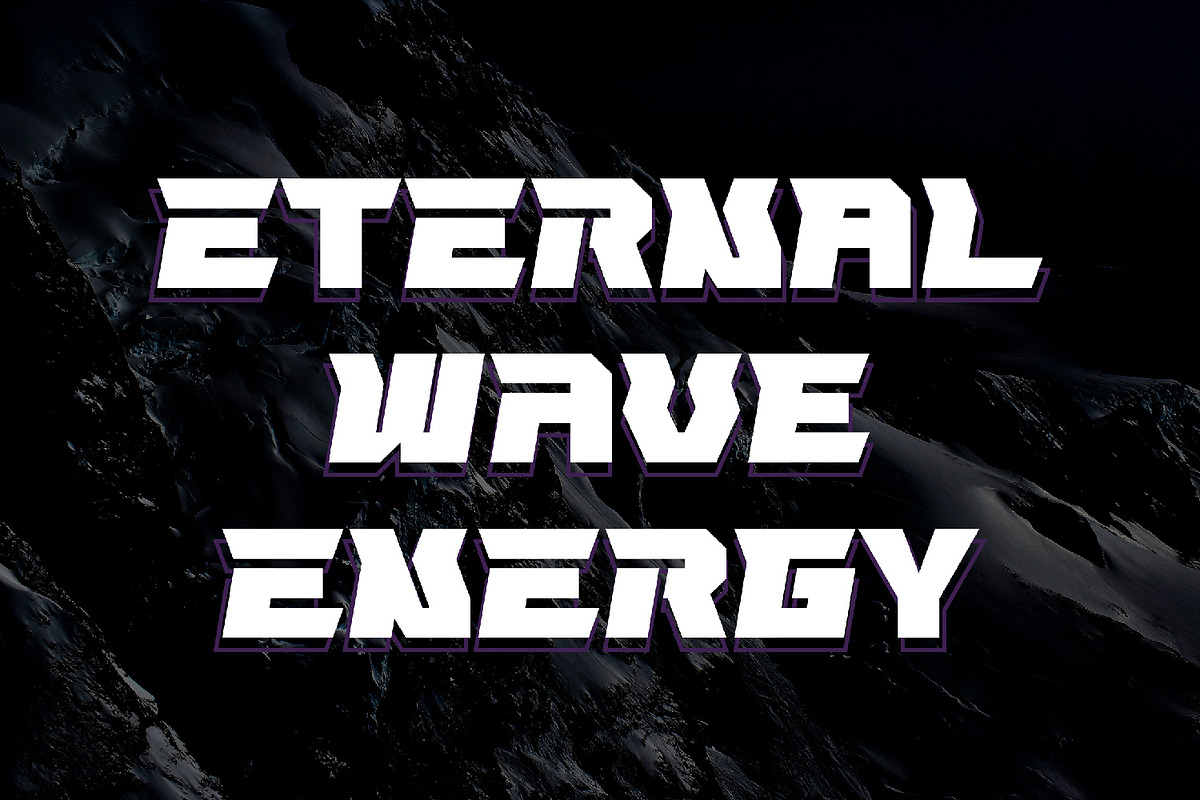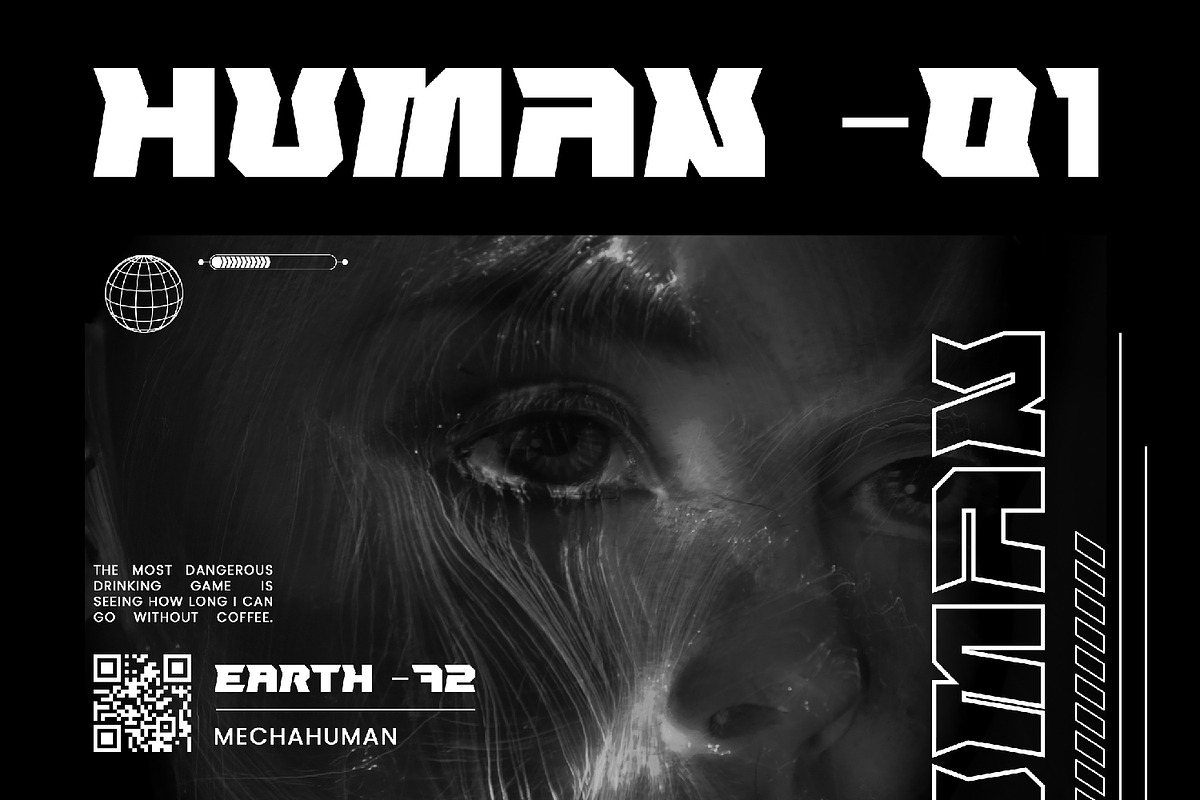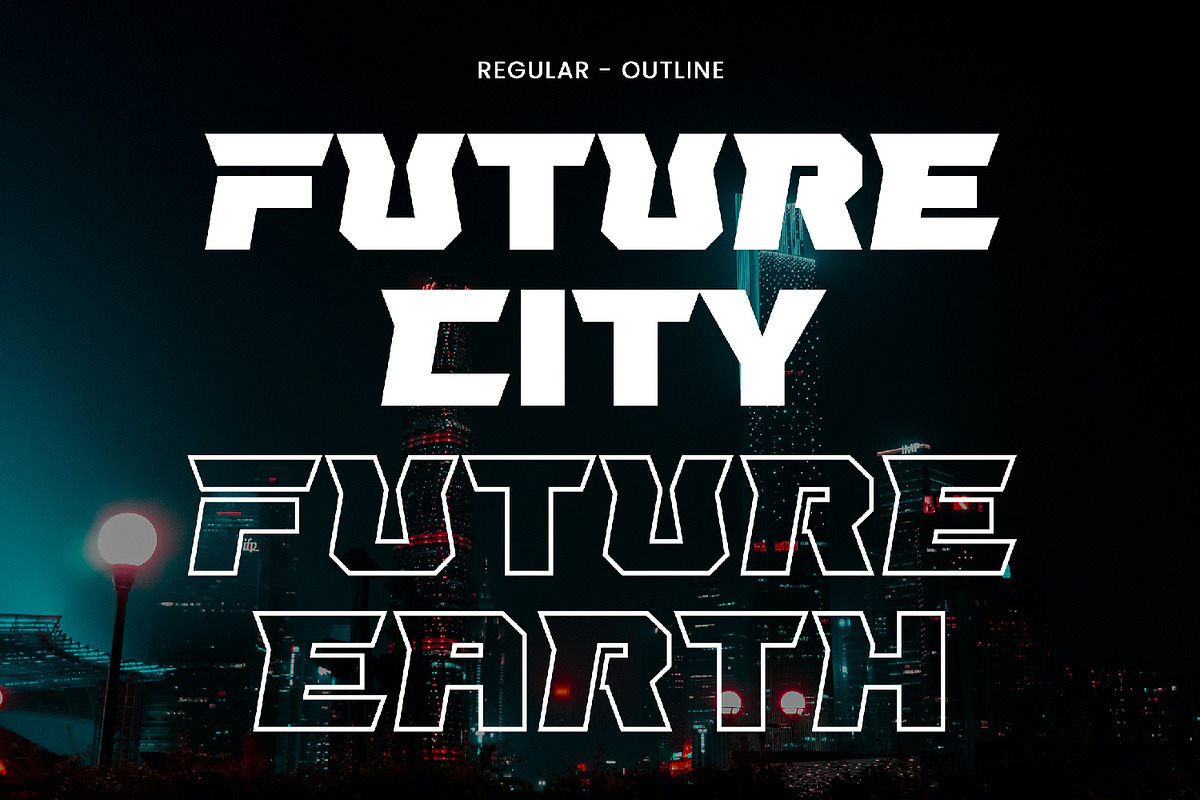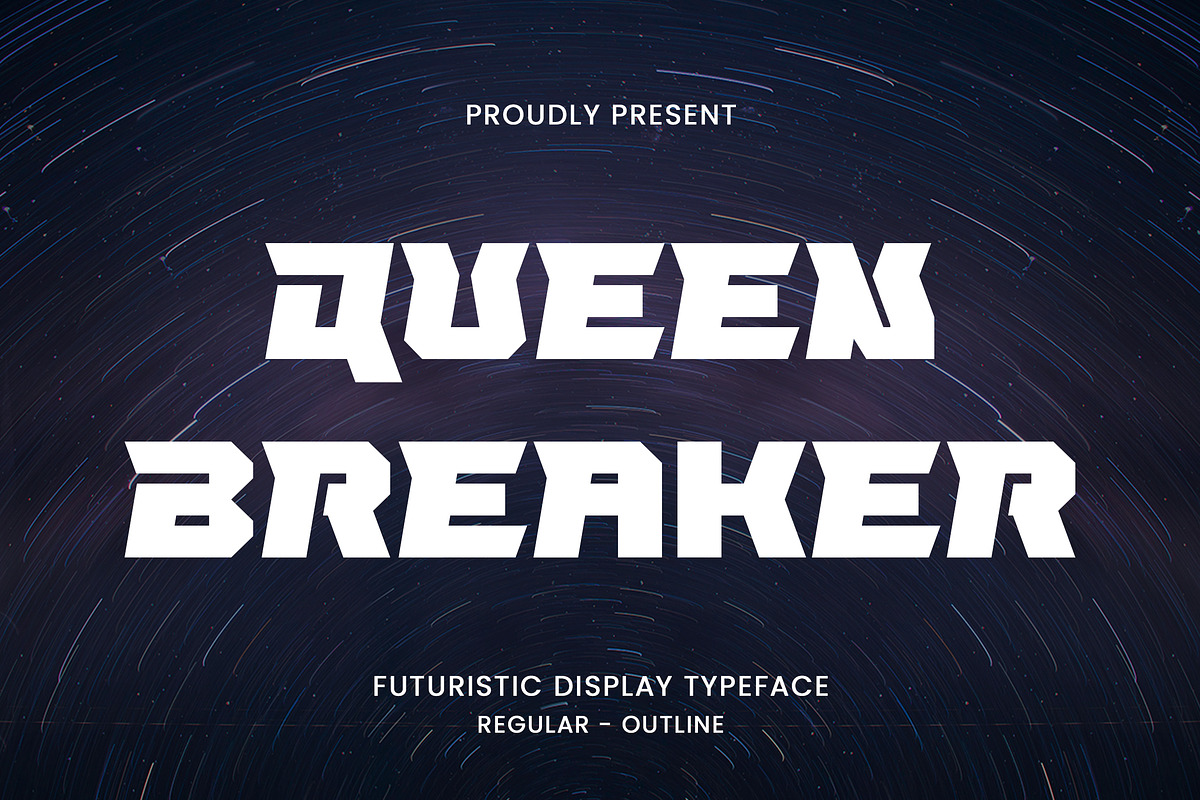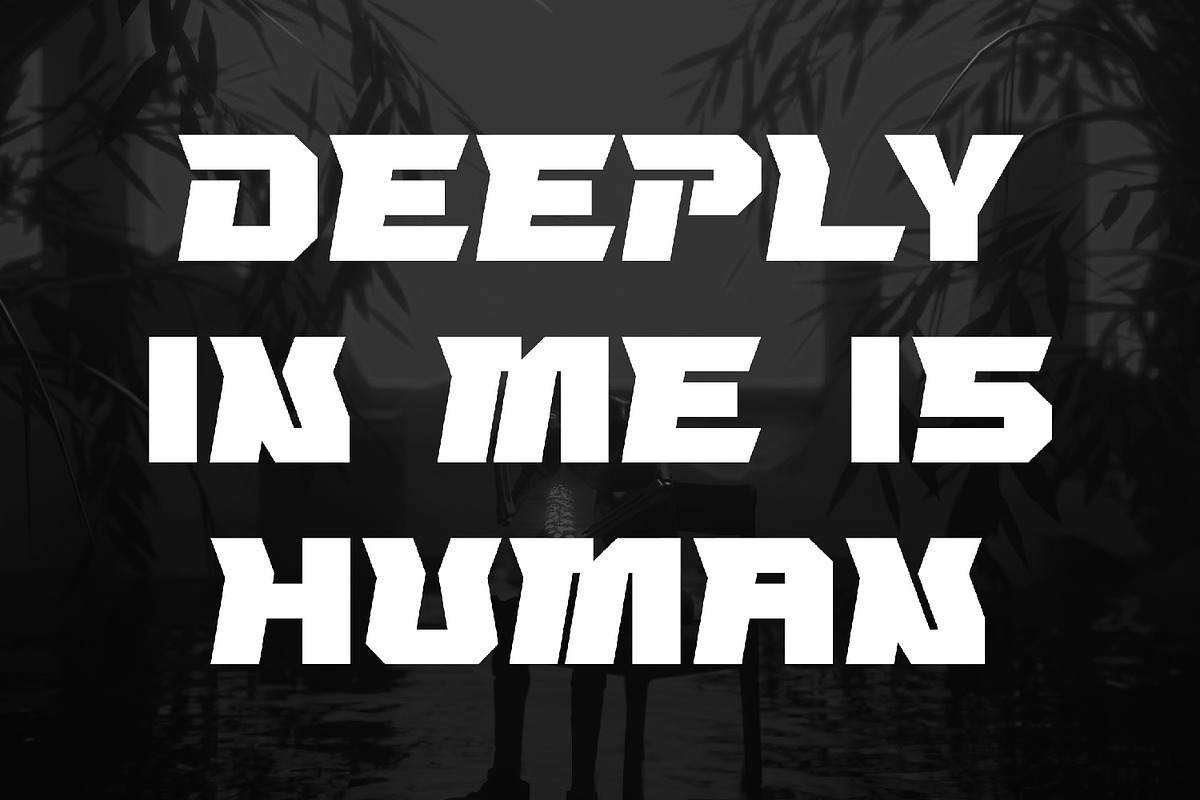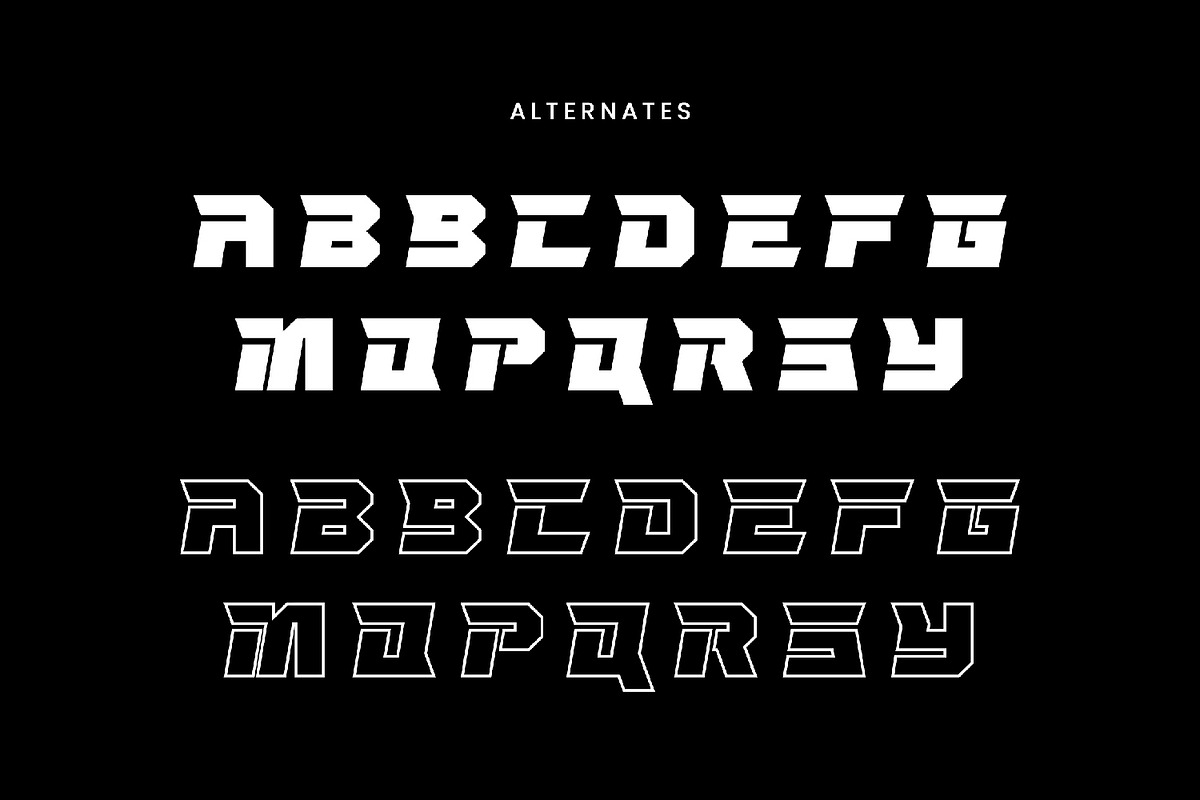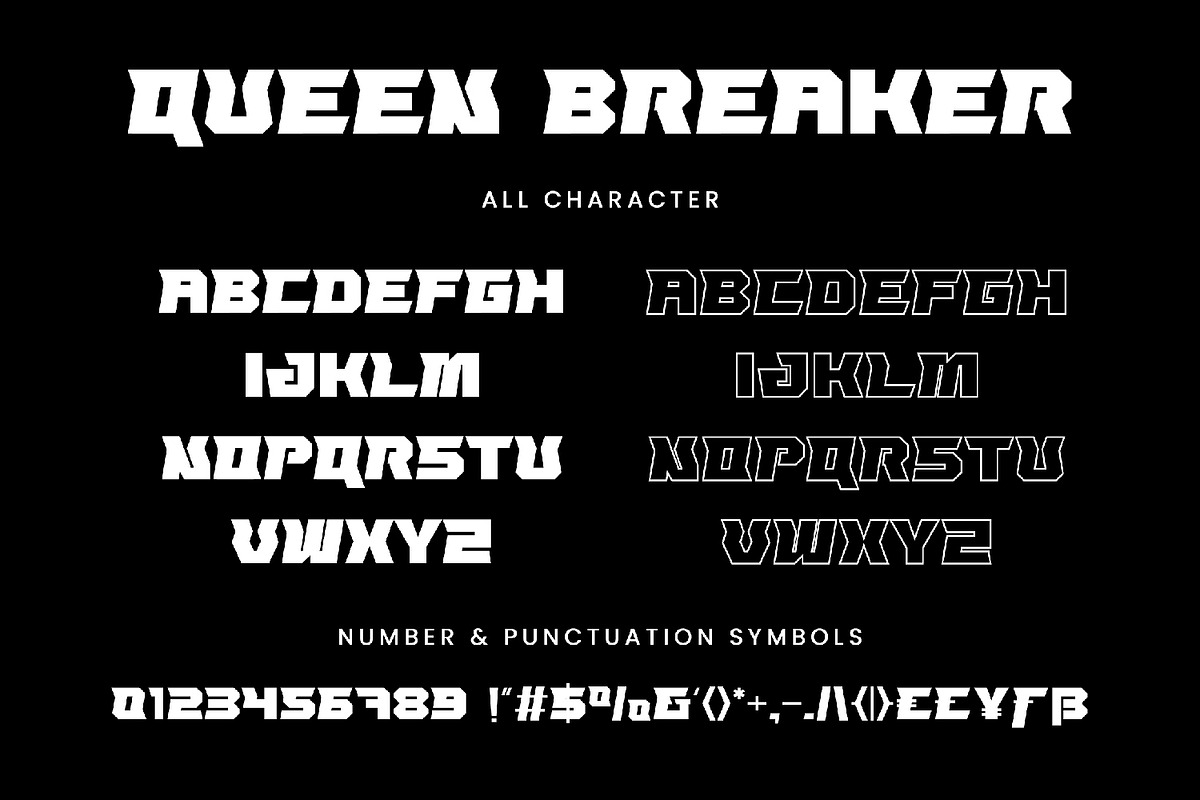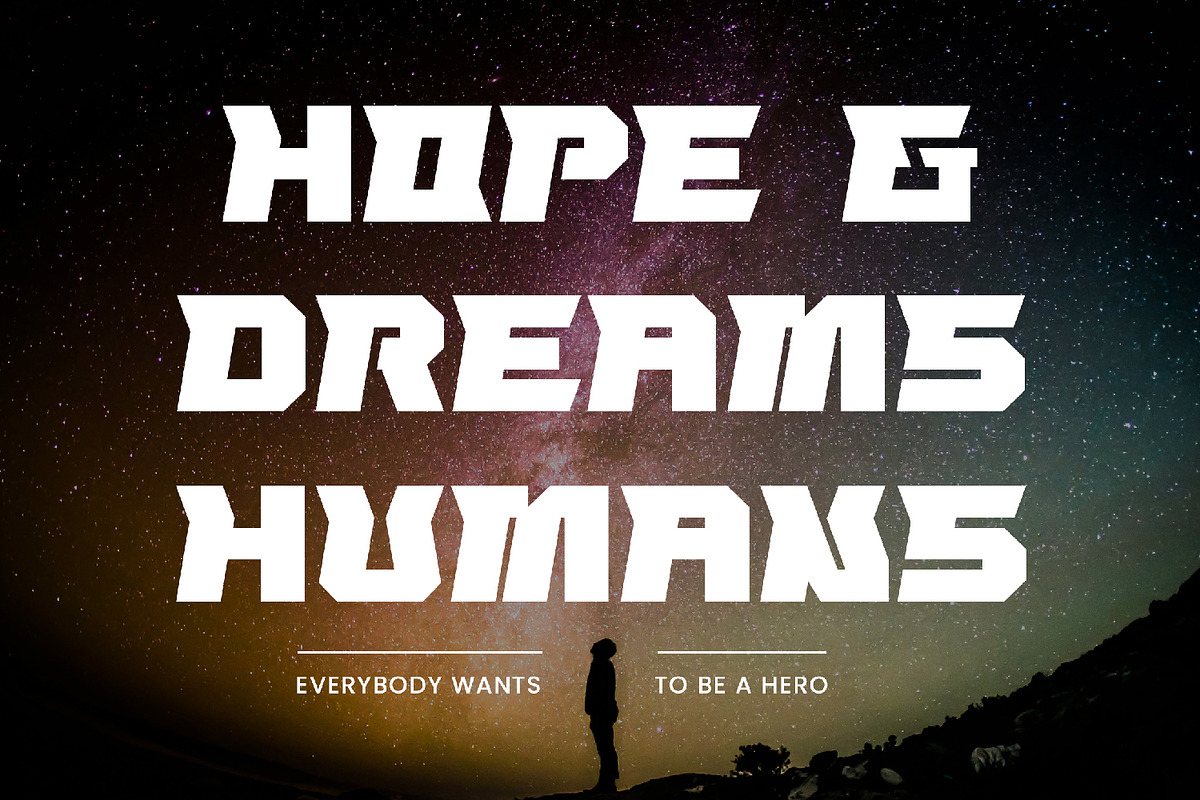
Queen Breaker - Futuristic Font
Queen Breaker - Futuristic Font contains a lowercase, uppercase, symbol, and also supports multi-language. There’s a lot of ligature in this font. Queen Breaker - Futuristic Font also comes with ligatures, stylistic alternates and many more. this font suitable for fashion, branding, catalog and other design that you want.